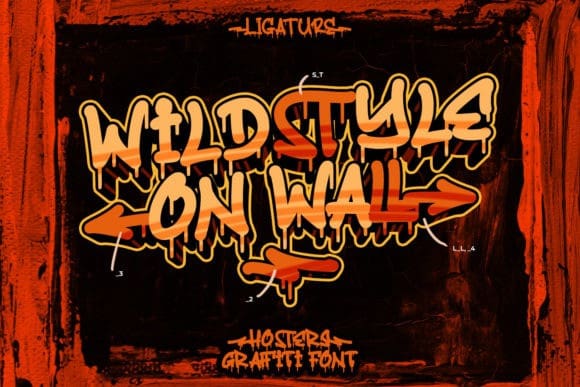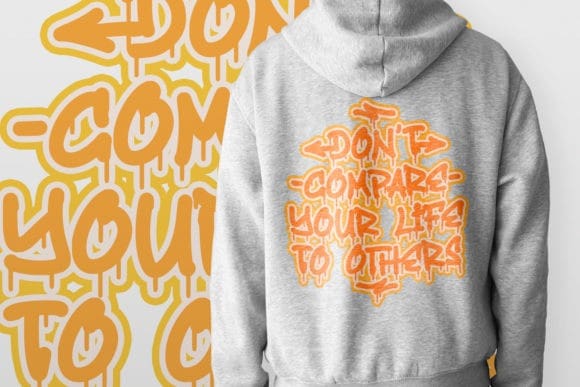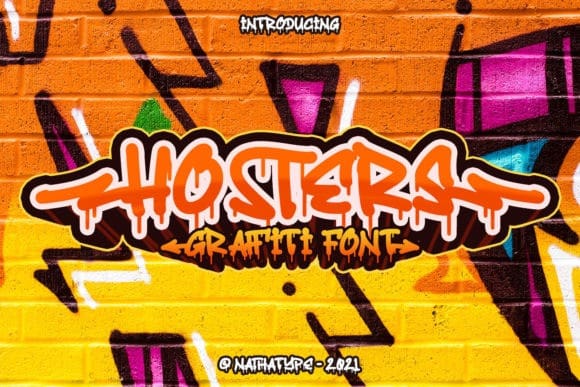
Hosters Display Font
Hosters Display Font, is a dramatic, creepy styled display font, that features a street art vibe. This font is suitable for designs like jerseys, sportswear, skateboard and more.